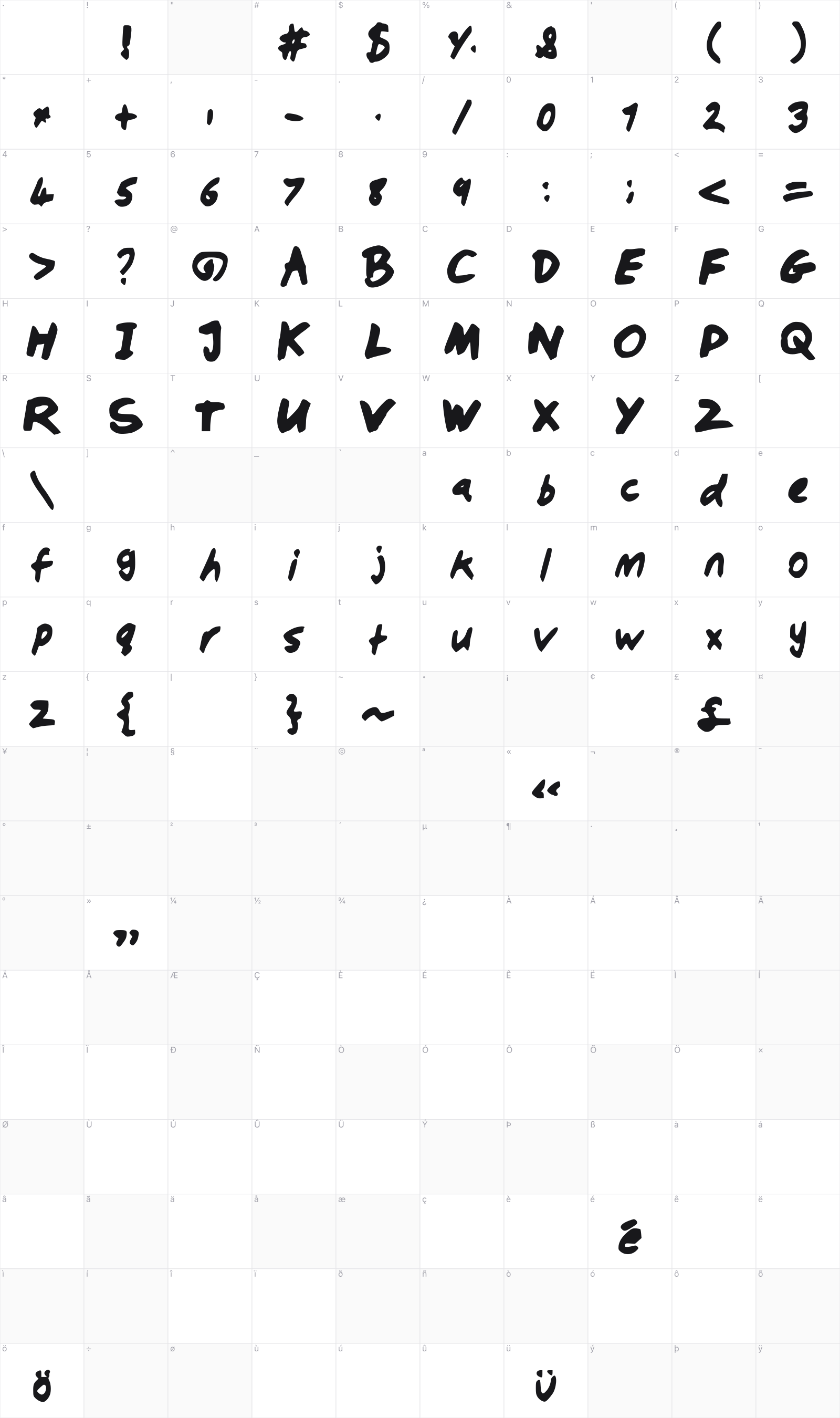
Dobbo Chisel
by Paul Dobbin
Dobbo Chisel is a thick, rounded handwritten face by Paul Dobbin that captures the confident, slightly uneven strokes of a broad chisel-tip marker. The letterforms are bold and playful without feeling forced, carrying the kind of casual energy that works well in headlines, packaging, and informal branding. Its heavy weight keeps it punchy at large sizes while the hand-drawn imperfections give it genuine warmth.